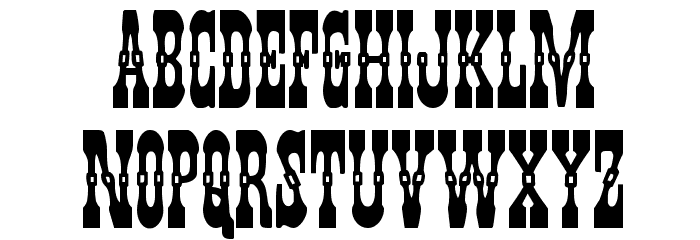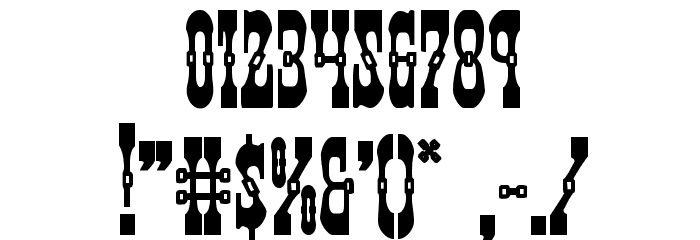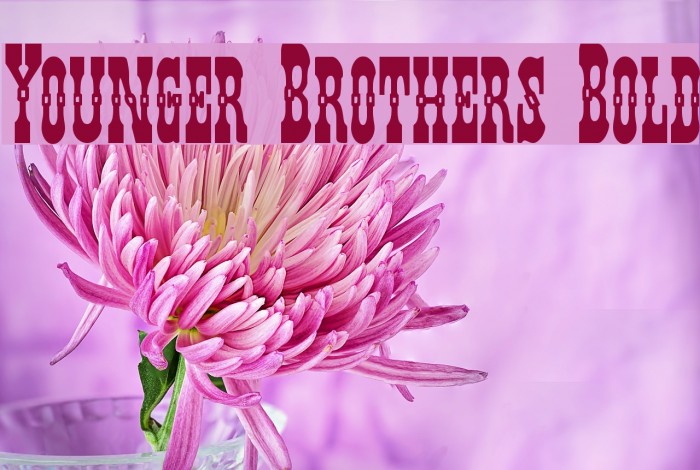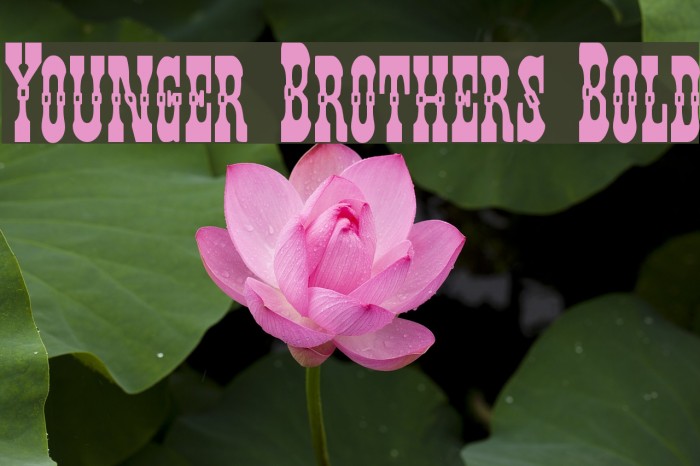
Younger Brothers Bold Font
This font features a bold and decorative style with a distinct Western flair. The characters are heavily stylized with thick strokes and unique cut-out details that give it a rugged, vintage appearance. The uppercase and lowercase letters maintain a consistent design, emphasizing boldness and a sense of adventure. The numbers and special characters follow the same thematic elements, making the font cohesive and visually striking. Its strong presence and unique character make it ideal for projects that require a touch of nostalgia and boldness.
A bold, decorative font with a Western, vintage style.
- Font: Younger Brothers Bold
- Proposed Projects: Ideal for posters, branding, signage, and any design needing a vintage Western aesthetic.
- Overall Style: Vintage